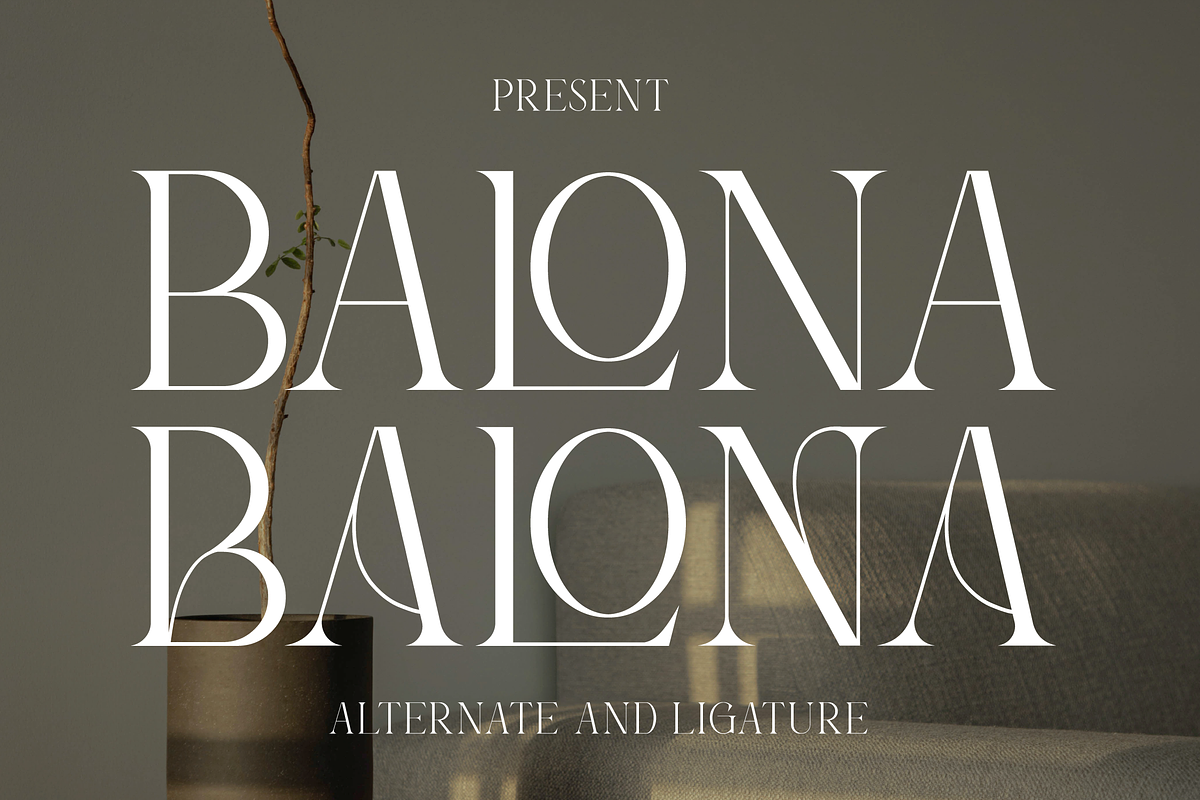
The Balona Modern Serif Font Free Download is a sophisticated and stylish typeface that blends classic serif features with a contemporary edge. With its clean lines and elegant structure, this font is perfect for high-end branding, editorial design, invitations, and more. Its modern feel, combined with its timeless appeal, makes it an ideal choice for projects that require a polished and refined look.
Balona Modern Serif Font Free Download is ideal for designers looking for a versatile and chic serif font. Whether you're working on luxury branding, editorial layouts, or creative projects, this font will elevate your work with its modern sophistication. Download this elegant font today and add a touch of class to your designs!